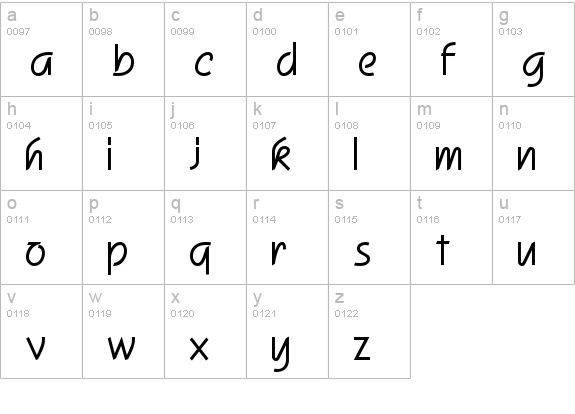
Squire Font Details
Squire Font is a timeless and elegant typeface that exudes sophistication and charm. It effortlessly combines classic elements with a modern twist, making it the perfect choice for any project that requires a touch of refinement. With its clean lines and graceful curves, Squire Font brings a sense of elegance to any design. This font is not only visually appealing, but it also offers a seamless reading experience. Its legibility and readability make it ideal for both short captions and long paragraphs. Whether you're designing a logo, creating a magazine layout, or crafting a wedding invitation, Squire Font will elevate your work to a whole new level. What's even better is that Squire Font is available for free! Yes, you read that right. This stunning typeface can be freely downloaded at FontsMarket.com, one of the leading font resources on the web. This means that you can enhance your designs without breaking the bank. It's a fantastic opportunity to add a touch of elegance to your projects without any additional cost. So, if you're looking for a font that embodies sophistication, Squire Font is the perfect choice. Its timeless design, combined with its free availability at FontsMarket.com, ensures that you can create stunning visuals that leave a lasting impression. Download Squire Font today and take your designs to new heights of elegance and style.